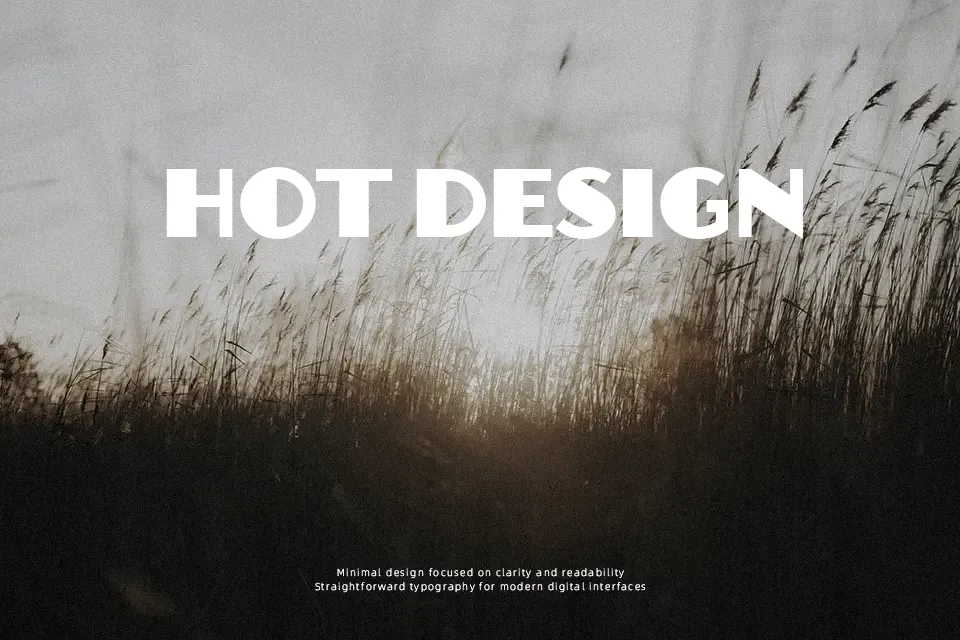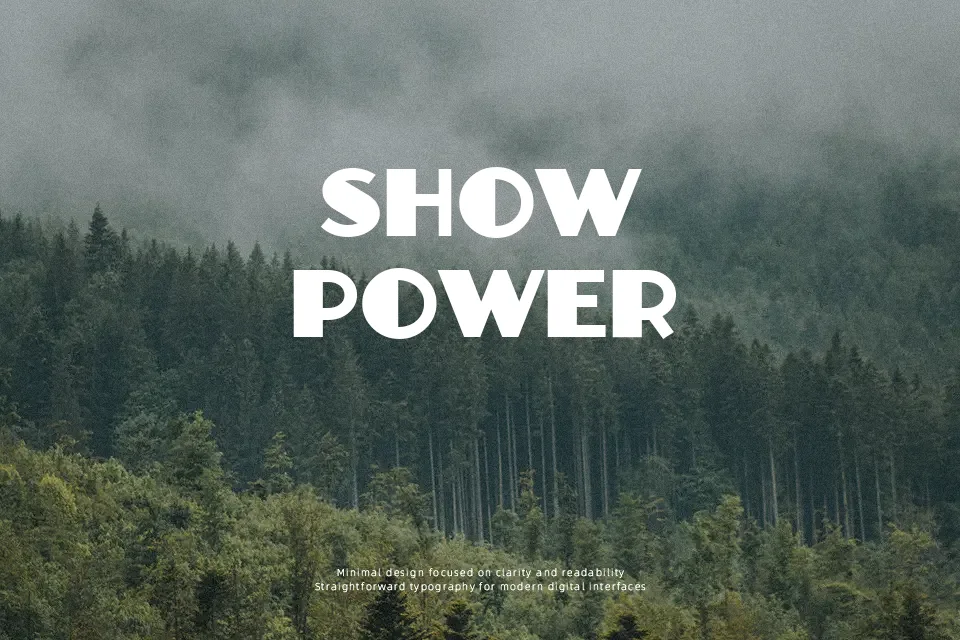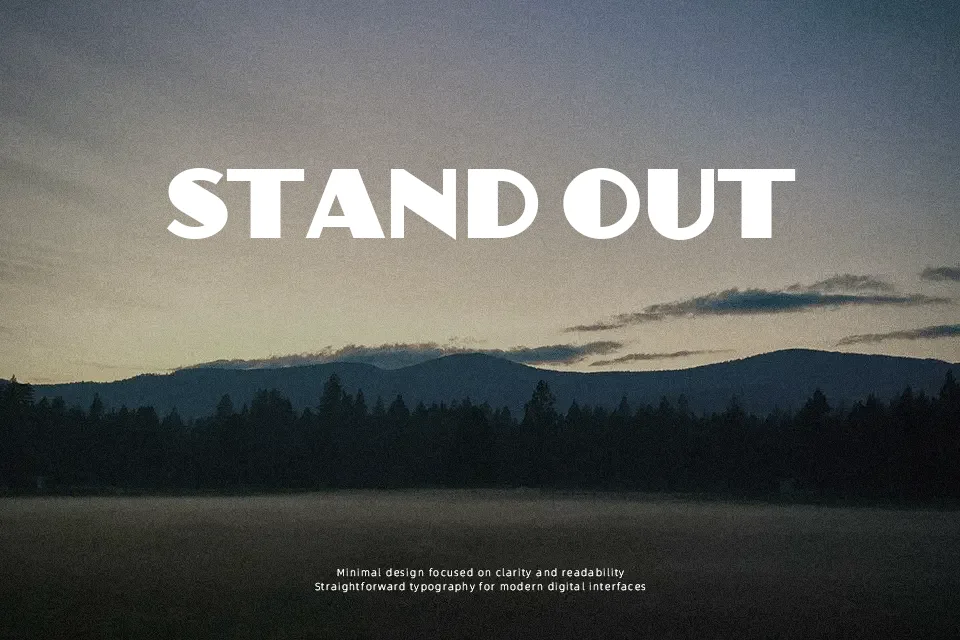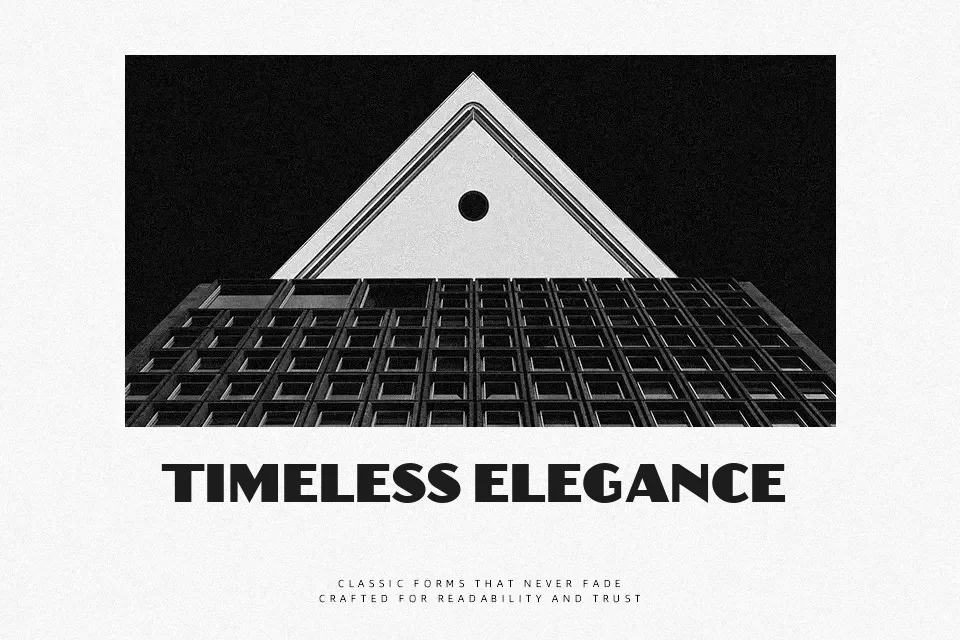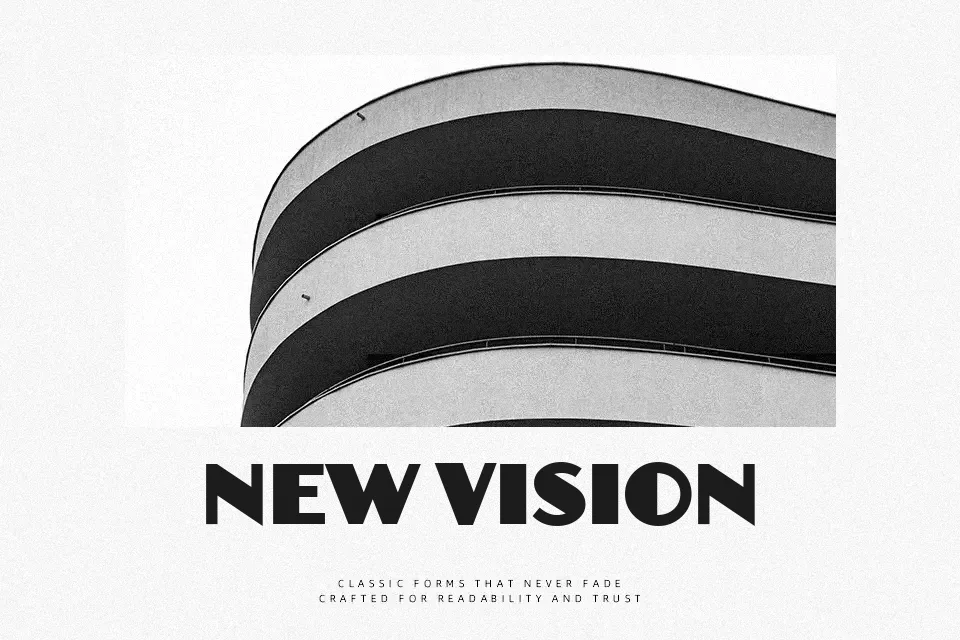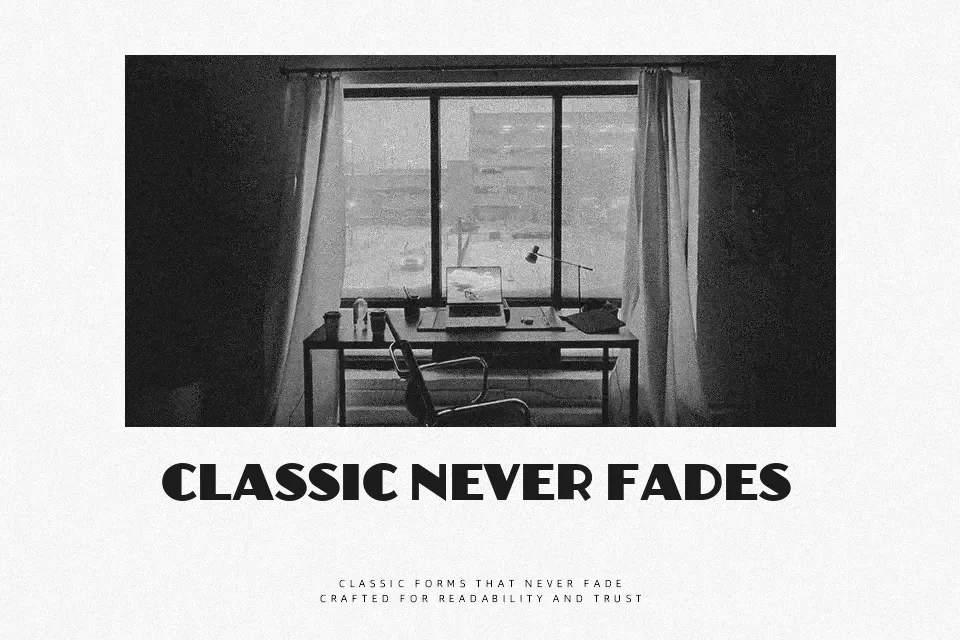
Anchor Jack Font
There’s a rawness to Anchor Jack that feels deliberate — thick strokes, confident weight, and a retro structure that skews more roadside signage than refined typography. The letterforms carry an industrial vintage quality, with minimal contrast between thick and thin strokes that gives it durability across large-scale applications. It works well for dive bar signage, coastal brand logos, band posters, and t-shirt prints where attitude matters more than refinement. That said, the style is heavy-handed by design, so if a project calls for subtlety or versatility across sizes, this font struggles. It’s not suited to body text, and at small sizes the character detail compresses poorly. Best treated as a headline-only tool in a narrow set of rugged, retro-themed contexts.
Best For:- Coastal or nautical brand logos
– Vintage poster and concert flyer headlines
– Bar, brewery, or surf shop signage
– Retro t-shirt and merchandise prints
Not Ideal For:- Body text or long-form reading
– Corporate or professional documents
– Small-size UI labels or captions
– Minimalist or modern design systems